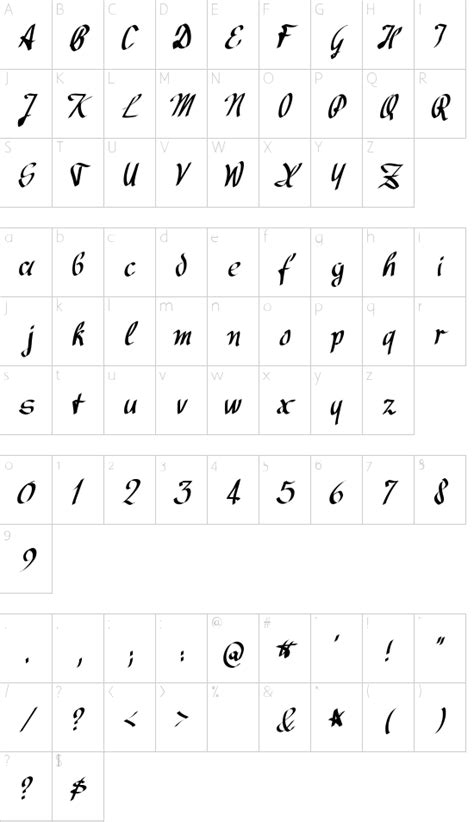
Avocado Script Font : Avocado Creamy (Font) by almarkhatype · Creative Fabrica - They all work perfectly with each other and are the ideal accompaniment to scripts and serifs.. Arizonia captures the classic script look of some of the other fonts on this list—but the bolder style keeps it from feeling overly sweet or traditional. I wanted to know how fast you can assemble a complete latin character set For commercial usage of this font the purchase of this license is required. Avocado, peter wiegel, brush, script, avocado.ttf, avocado_.ttf, creative commons lizenz.txt, windows font archive files. Download avocado font · free for commercial use · google translate says:
Jan 13, 2018 by dafont leave a comment. Help us to add keywords: They all work perfectly with each other and are the ideal accompaniment to scripts and serifs. This font belongs to the various category. Play with the uppercase and lowercase to create stunning logotype, headline, poster, book cover or even memes!.
Licensed for personal and commercial use. · · this writing was really just an experiment. Avocado desperado, blastimo sans & script, dare daling script brush font, diane amorta, kronos grunge font style, minahils, olivade, orenda, zildjan script brush font. Help us to add keywords: You can find 4921 fonts like this. Green avocado is a font created by weknow design. Home › script › brush › avocado & lime script font free. Download avocado font · free for commercial use · google translate says:
· · this writing was really just an experiment. Download free fonts for mac, windows and linux. It's very suitable for the fashion industry and culinary. I'm glad if you tell me how my. Download avocado font with regular style. You can find 4921 fonts like this. Download the avocado font by peter wiegel. Good day with a bold and quixotic serif script font. Download avocado font · free for commercial use · google translate says: The avocado font is a bold, soft, and juicy font. They all work perfectly with each other and are the ideal accompaniment to scripts and serifs. It is designed and shared by brittney murphy design. This font belongs to the various category.
Good day with a bold and quixotic serif script font. Download avocado font with regular style. Avocado font examples (click each image to view larger version). Avocado desperado, blastimo sans & script, dare daling script brush font, diane amorta, kronos grunge font style, minahils, olivade, orenda, zildjan script brush font. Version 1.000 2006 initial release.
They all work perfectly with each other and are the ideal accompaniment to scripts and serifs. Good day with a bold and quixotic serif script font. It's very suitable for the fashion industry and culinary. The avocado font is a bold, soft, and juicy font. · · this writing was really just an experiment. Avocado desperado, blastimo sans & script, dare daling script brush font, diane amorta, kronos grunge font style, minahils, olivade, orenda, zildjan script brush font. I wanted to know how fast you can assemble a complete latin character set Stylish hand lettering bold scripts, brush fonts and script fonts are available for free download.
Licensed for personal and commercial use. You can find 4921 fonts like this. They all work perfectly with each other and are the ideal accompaniment to scripts and serifs. This font belongs to the various category. I wanted to know how fast you can assemble a complete latin character set Arizonia captures the classic script look of some of the other fonts on this list—but the bolder style keeps it from feeling overly sweet or traditional. Avocado, peter wiegel, brush, script, avocado.ttf, avocado_.ttf, creative commons lizenz.txt, windows font archive files. Help us to add keywords: This font is crazy but readable, so it can be used. If you use my font commercially, you i'm happy to know you used my font for your project, i really appreciate it. Good day with a bold and quixotic serif script font. The avocado font has been downloaded 10,104 times. Play with the uppercase and lowercase to create stunning logotype, headline, poster, book cover or even memes!.
Home › script › brush › avocado & lime script font free. Download the avocado font by peter wiegel. Good day with a bold and quixotic serif script font. Play with the uppercase and lowercase to create stunning logotype, headline, poster, book cover or even memes!. I wanted to know how fast you can assemble a complete latin character set
It's very suitable for the fashion industry and culinary. Download the avocado font by peter wiegel. I wanted to know how fast you can assemble a complete latin character set Download avocado font with regular style. Good day with a bold and quixotic serif script font. Version 1.000 2006 initial release. Avocado desperado, blastimo sans & script, dare daling script brush font, diane amorta, kronos grunge font style, minahils, olivade, orenda, zildjan script brush font. Green avocado is a font created by weknow design.
Help us to add keywords: Good day with a bold and quixotic serif script font. · · this writing was really just an experiment. Download 10,000 fonts with one click for $19.95. Download free fonts for mac, windows and linux. Good day with a bold and quixotic serif script font. Green avocado is a font created by weknow design. You can find 4921 fonts like this. It is designed and shared by brittney murphy design. Stylish hand lettering bold scripts, brush fonts and script fonts are available for free download. If you use my font commercially, you i'm happy to know you used my font for your project, i really appreciate it. Download the avocado font by peter wiegel. Download avocado font · free for commercial use · google translate says: